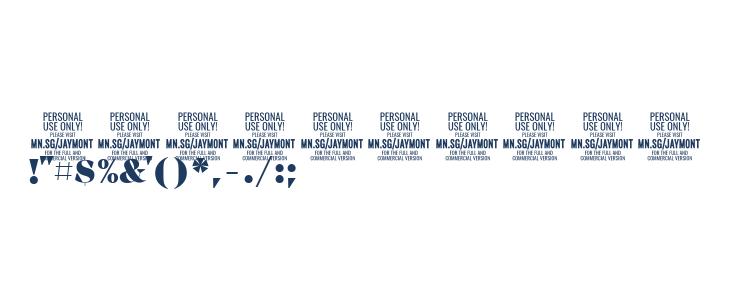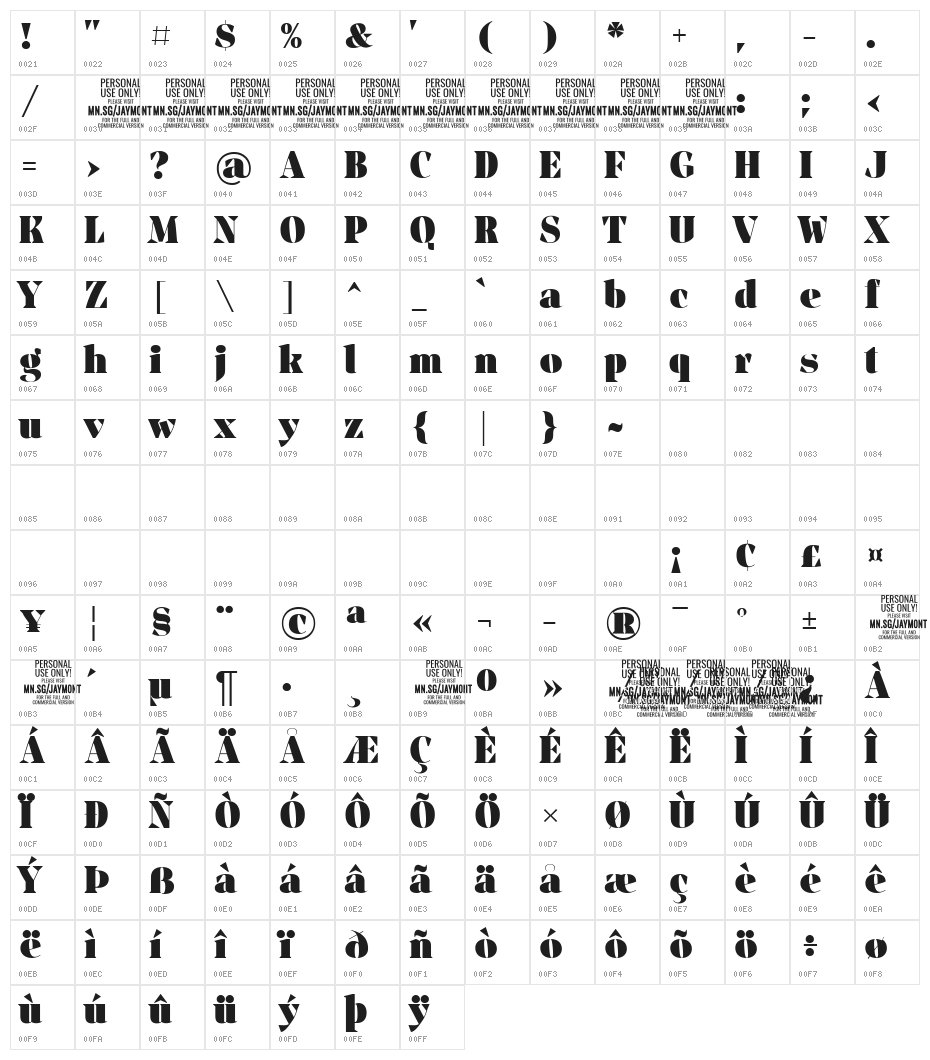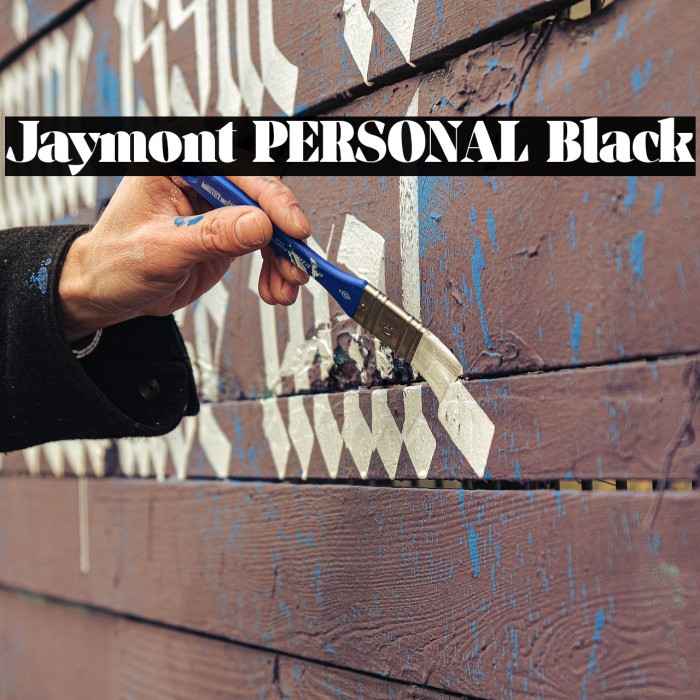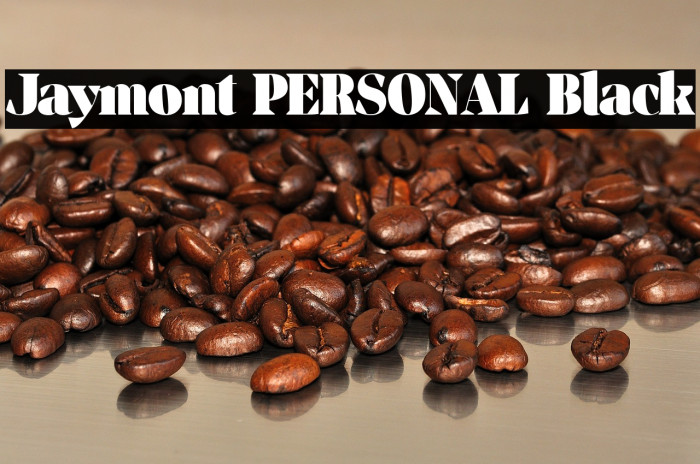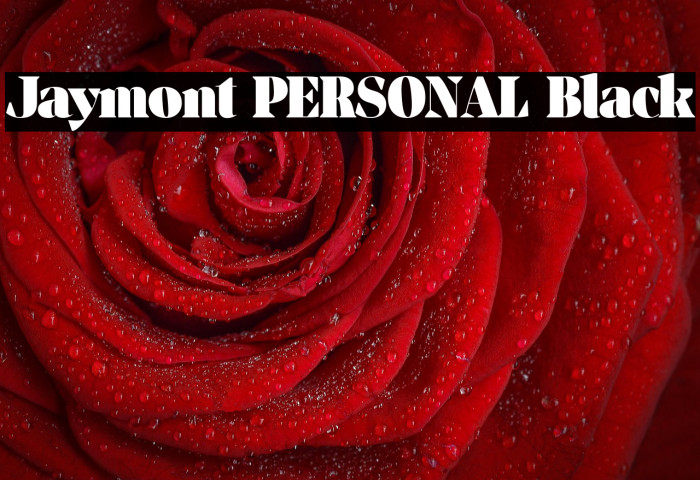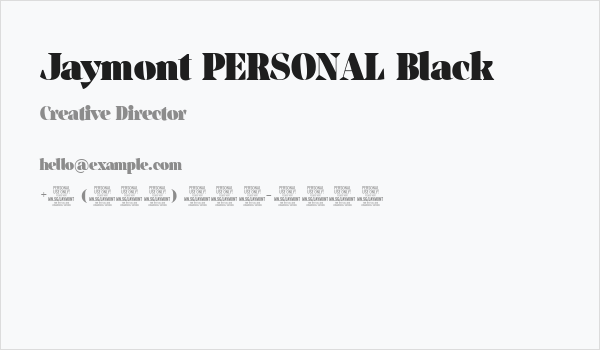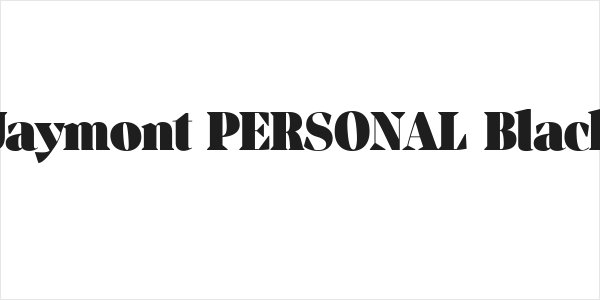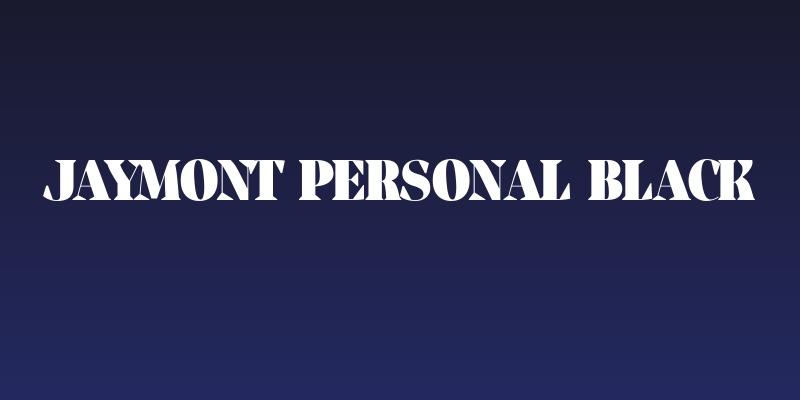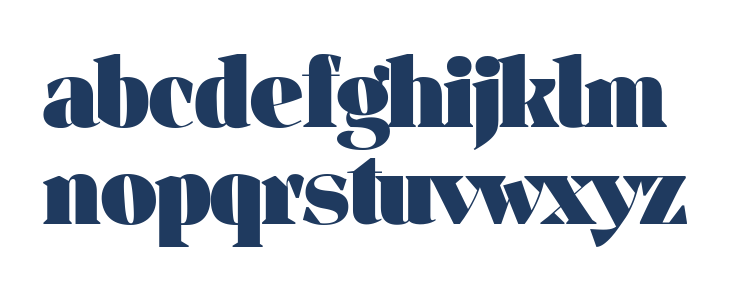
Jaymont PERSONAL Black Font
Jaymont PERSONAL Black Description
This font features a bold and striking design with thick, heavy strokes that create a strong visual impact. The characters have a modern, geometric style with sharp angles and clean lines, giving them a contemporary and assertive appearance. The uppercase letters are particularly prominent, while the lowercase letters maintain a consistent weight and style. The numerals and special characters are designed to match the boldness of the alphabet, ensuring a cohesive look across all text. This font is ideal for making a statement in any design project.
| Proposed Projects | Ideal for headlines, posters, branding, and any project requiring a strong visual impact. |